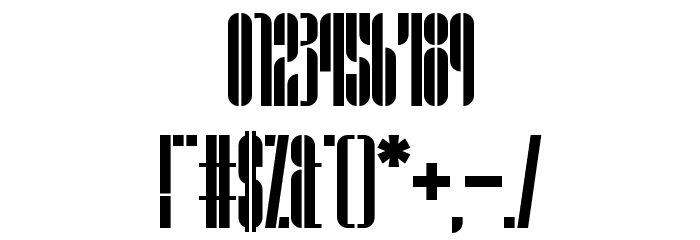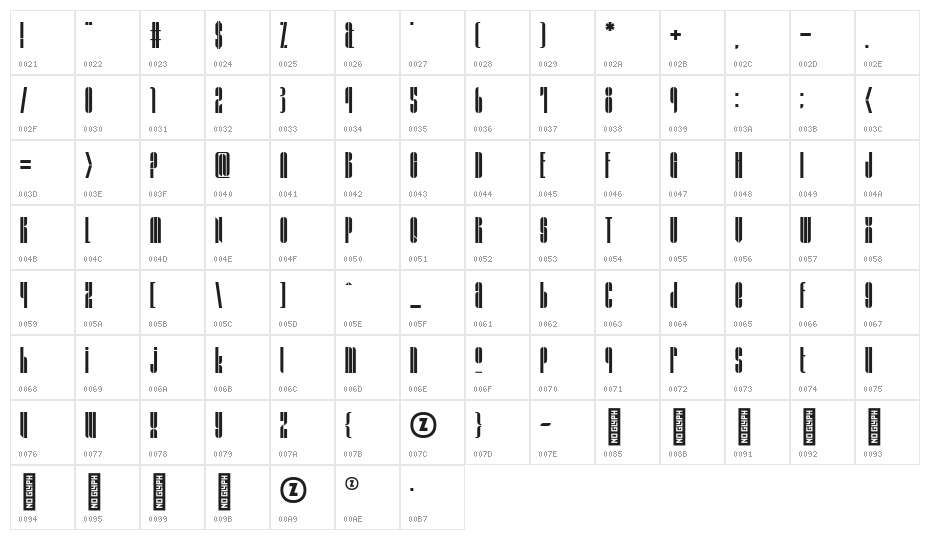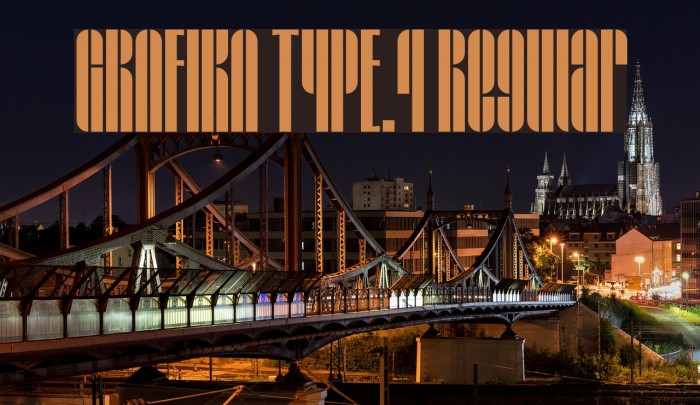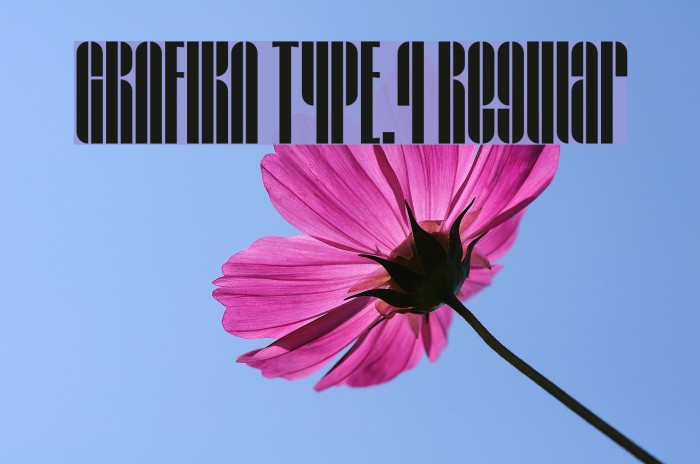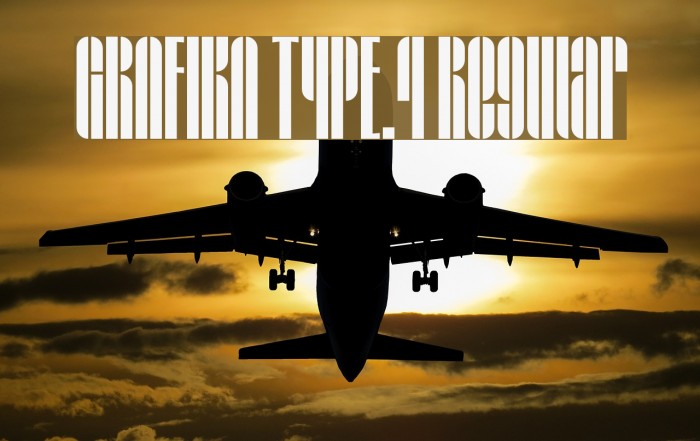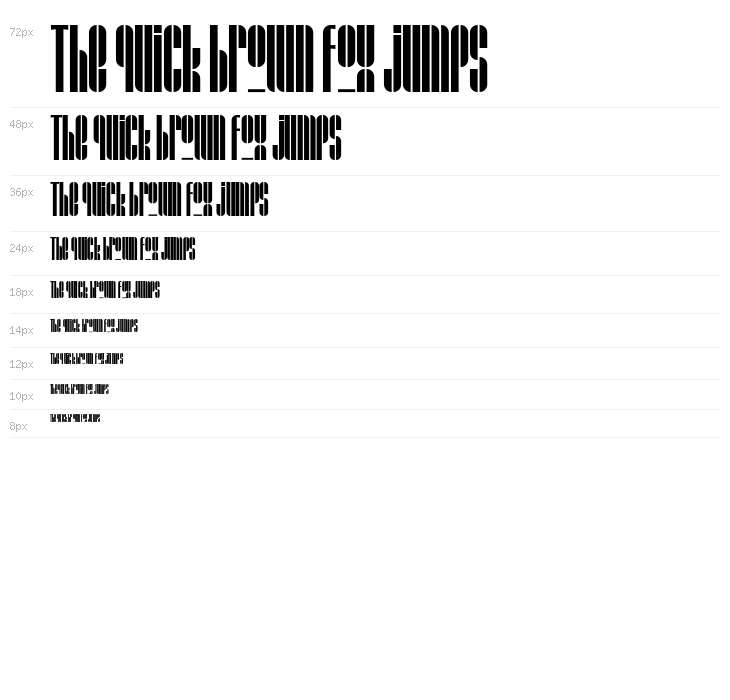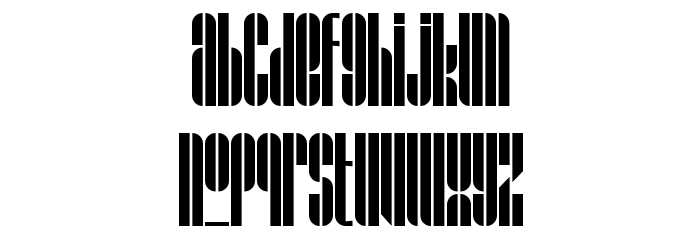
GRAFIKA TYPE.4 Regular Font
GRAFIKA TYPE.4 Regular Description
This font features a bold and striking design with a strong geometric influence. The characters are tall and narrow, creating a condensed appearance that emphasizes verticality. The strokes are thick and consistent, giving the font a robust and impactful presence. The sharp angles and clean lines contribute to a modern and edgy aesthetic, making it suitable for attention-grabbing headlines and titles. The uppercase and lowercase letters maintain a uniform style, while the numerals and special characters complement the overall design with their cohesive structure.
| Proposed Projects | Ideal for posters, branding, and editorial design where a strong visual impact is desired. |